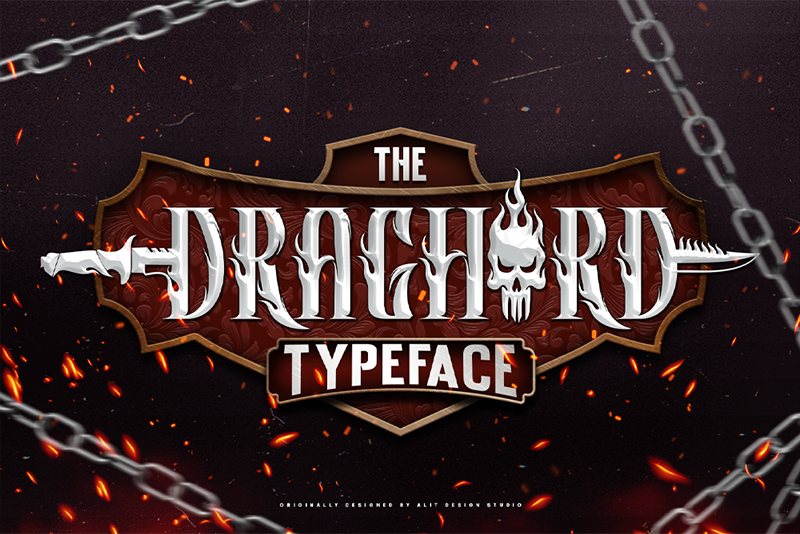
Introducing Draghord, a bold and dynamic typeface that embodies the essence of superheroic power and adventure. This font is a visual journey into the realm of fire, swords, skulls, and wings, capturing the spirit of mighty heroes and formidable villains alike. This is font Demo just for personal use, Not permitted for commercial use. The donation is very appreciated. Please check here for more info about the license: https://alitdesign.net/license/ DOWNLOAD FULL VERSION AND FOR COMMERCIAL USE: https://alitdesign.net/product/draghord-typeface/ Creative Market: https://crmrkt.com/blERgA visit my website for full version and commercial use: https://alitdesign.net/ follow my Instagram to update my portfolio: https://www.instagram.com/alitdesign_studio/ Email : info@alitdesign.net |